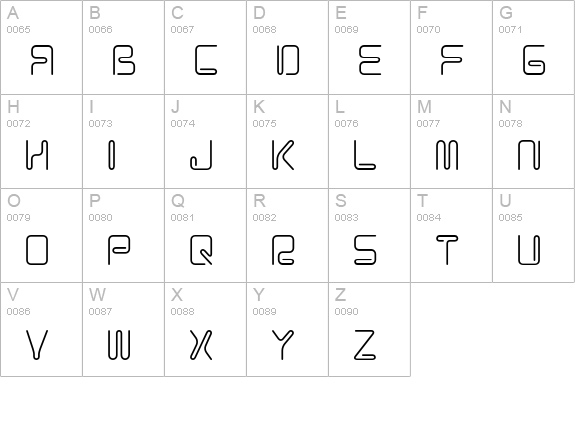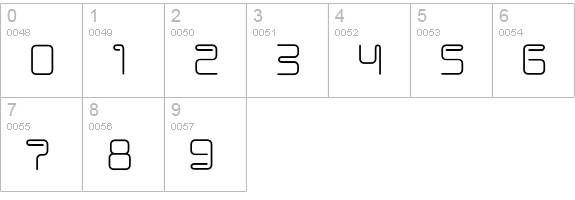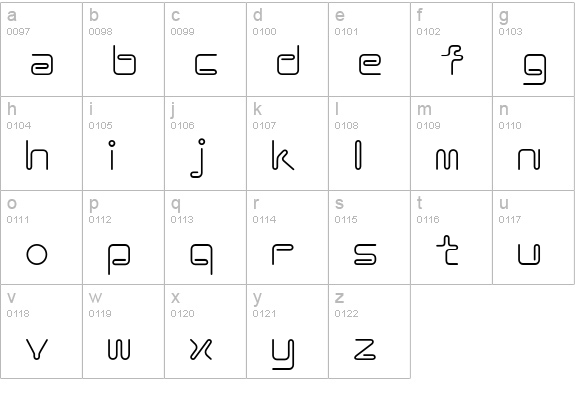
Coil-Regular Font Details
Coil-Regular is the standard, neutral variant in the Coil typeface family \xE2\x80\x94 well suited to general body text, paragraphs, and standard typographic work.
Introducing Coil-Regular font, a versatile and modern typeface that is perfect for a wide range of design projects. With its clean lines and balanced proportions, Coil-Regular exudes a sense of elegance and sophistication. Whether you are designing a website, creating a logo, or working on a branding project, this font is sure to make a lasting impression. What sets Coil-Regular apart is not only its timeless design but also the fact that it is freely available to download at FontsMarket.com. This means that you can easily access this high-quality font without any cost, making it a valuable addition to your font library. With its smooth curves and attention to detail, Coil-Regular is a versatile font that can be used for various purposes. From headlines to body text, this font will ensure that your message is conveyed clearly and effectively. So why wait? Download Coil-Regular today and elevate your design projects with this exceptional font.